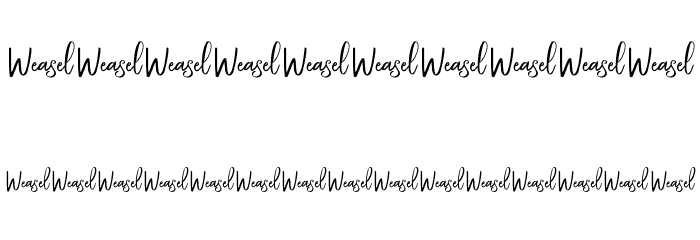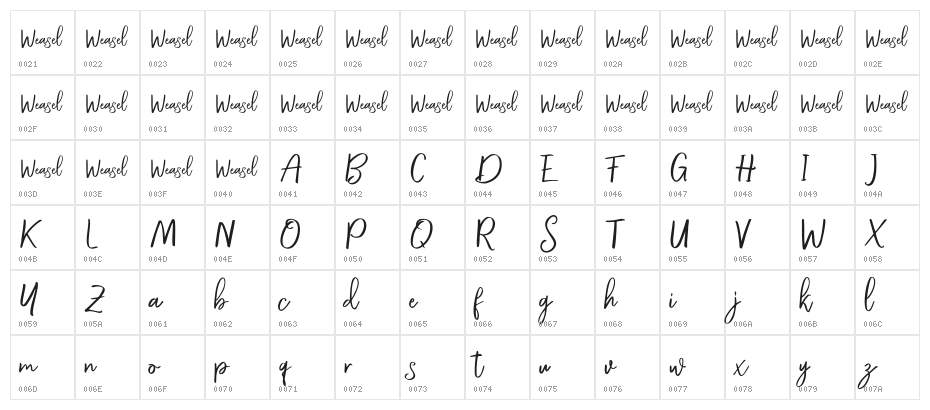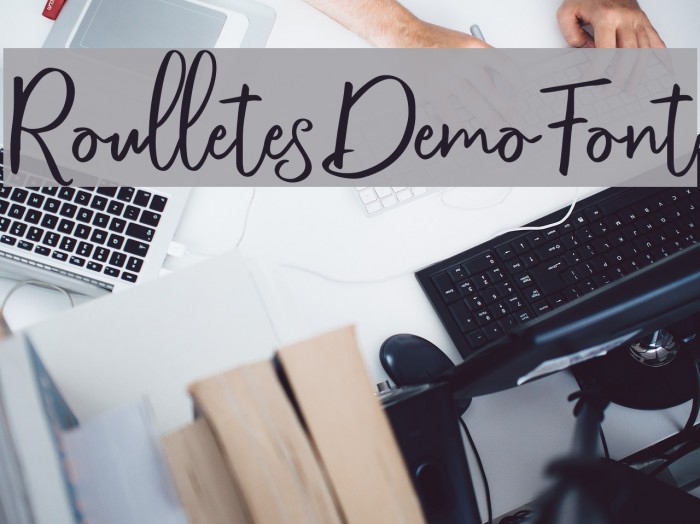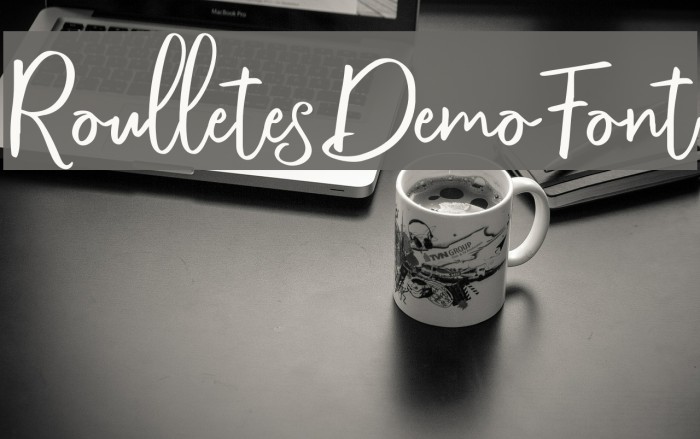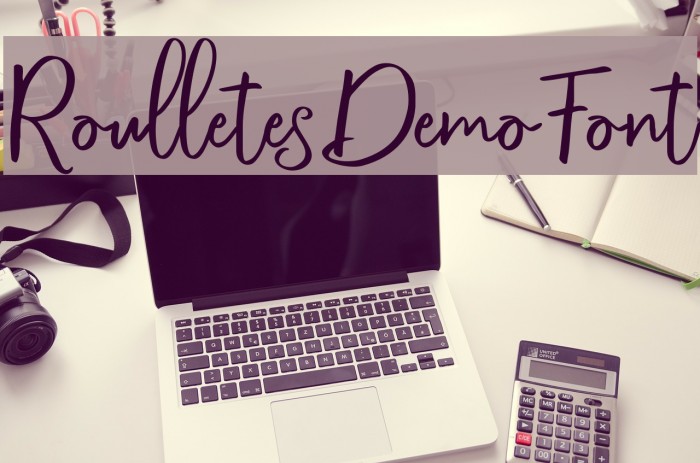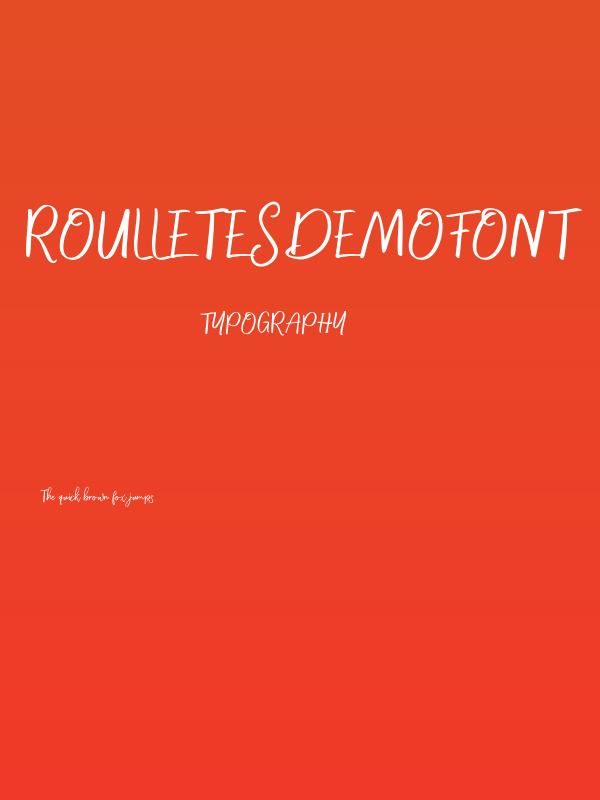
RoulletesDemoFont Font
RoulletesDemoFont Description
This font features a playful and energetic script style, characterized by its flowing, cursive letterforms. The uppercase letters are bold and slightly slanted, adding a dynamic feel, while the lowercase letters exhibit a more pronounced cursive style with elegant loops and swashes. The overall design is casual yet sophisticated, making it suitable for creative projects that require a personal touch. The font maintains a consistent stroke width, providing a harmonious and balanced appearance. Its lively and informal nature makes it ideal for designs that aim to convey friendliness and approachability.
| Use Case | Logos, Invitations, Social Media Graphics |
| Proposed Projects | Ideal for invitations, greeting cards, branding, and social media graphics. |